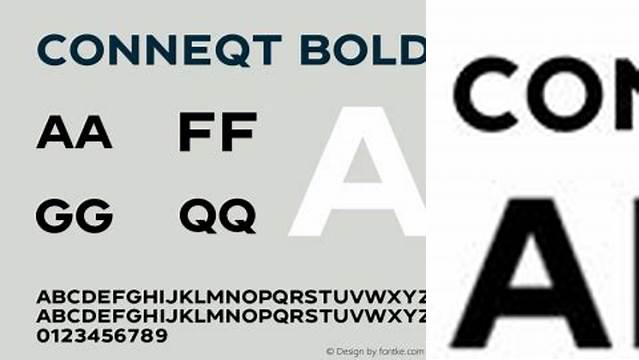
Hey guys, ever found yourself scrolling through countless fonts, desperately searching for that perfect typeface that just screams confidence and style? Well, today, we're diving deep into the world of Conneqt Bold Font, and more importantly, how you can get your hands on a free TTF download. This isn't just any font; Conneqt Bold Font is a powerhouse, a visual statement that can instantly elevate your design projects, whether you're working on a slick new logo, an eye-catching website, or even just some awesome social media graphics. We're talking about a font that commands attention without being overbearing, a beautiful balance of strength and sophistication. The journey to secure your Conneqt Bold Font free download TTF file might seem a bit daunting at first, with so many sites out there claiming to offer free fonts, but don't sweat it! We're here to guide you every step of the way, ensuring you land on a legitimate, safe, and truly free version of this fantastic typeface. Think of it as your secret weapon in your design arsenal, ready to deploy and make a massive impact on your creative endeavors. It's truly amazing what a well-chosen font can do to transform a design from ordinary to extraordinary, and Conneqt Bold Font absolutely has that magic touch. Its clean lines and robust weight make it versatile for a wide array of applications, from impactful headlines that grab attention, to elegant branding elements that leave a lasting impression. Many designers often grapple with finding high-quality resources that don't break the bank, and that's precisely where a Conneqt Bold Font free download TTF comes into play as an invaluable asset. It democratizes access to professional-grade typography, allowing everyone, from students to seasoned freelancers, to produce top-tier work. We'll explore various sources where you can initiate your Conneqt Bold Font free download TTF process, discuss the importance of checking licensing agreements (even for 'free' fonts!), and walk you through the simple steps to install it on your system. So, buckle up, design enthusiasts, because your quest for the ultimate bold font is about to get a whole lot easier and more exciting with Conneqt Bold Font as your new best friend. Let’s get started on bringing this incredible typeface into your creative toolkit, absolutely free! Finding a truly Conneqt Bold Font free download TTF source can make all the difference for your budget-conscious projects, allowing you to achieve a high-end look without any cost. This guide is dedicated to helping you achieve just that, ensuring you can confidently use Conneqt Bold Font in your next big thing without any worries, propelling your designs forward with style and impact.
Why Conneqt Bold Font is a Must-Have for Designers
Alright, guys, let's talk about why Conneqt Bold Font isn't just another typeface you'll download and forget. This font is a game-changer, a real asset for anyone serious about design, and getting a free TTF download is like striking gold. The power of Conneqt Bold Font lies in its sheer presence. It commands attention without being aggressive, offering a perfect blend of strength and sophisticated elegance that can instantly elevate any visual project. Imagine trying to create a headline that really pops, or a brand name that sticks in people's minds – Conneqt Bold Font does precisely that. Its robust weight makes it incredibly effective for titles, logos, and any area where you need text to stand out prominently and make a lasting impression. It's the kind of font that instantly adds a layer of professionalism and modernity to any project, which is why so many designers are actively seeking a Conneqt Bold Font free download TTF. This font doesn't just fill space; it defines it, giving your words the weight and gravitas they deserve, ensuring your message is not just seen but felt. The intentional design behind each character speaks volumes, making it a powerful choice for communicating confidence and clarity in any medium. Many fonts can be bold, but few achieve the same level of refined assertiveness that Conneqt Bold Font masterfully delivers. It truly sets a new standard for impact without sacrificing aesthetic appeal.
One of the biggest reasons Conneqt Bold Font is a must-have is its exceptional versatility. While it shines in bold applications, its clean lines and well-proportioned characters ensure excellent readability across various sizes. This means you’re not just getting a headline font; you’re getting a workhorse that can be adapted for subheadings, call-to-actions, and even short bursts of copy where emphasis is required. Think about the consistency this brings to your designs! Instead of juggling multiple bold fonts, Conneqt Bold Font can often serve several purposes, streamlining your workflow and maintaining a cohesive visual identity across all your creative output. For students or freelance designers operating on a tight budget, securing a Conneqt Bold Font free download TTF is an absolute blessing, providing access to a high-quality design element without incurring costs. This accessibility allows for greater creative freedom and experimentation, which is vital for developing unique and impactful designs that genuinely stand out. Don't underestimate the power of a well-chosen font to convey emotion and message; Conneqt Bold Font nails it every time, projecting confidence and clarity with every stroke. So, if you're looking to elevate your design game, add a touch of modern sophistication, and make your message truly resonate, then getting your hands on a Conneqt Bold Font free download TTF should be high on your priority list. It's an investment in your design future, an essential tool that will pay dividends in the quality and impact of your work. Seriously, guys, once you start using this font, you'll wonder how you ever managed without its undeniable charm and undeniable strength. It's a key component to a polished, professional aesthetic, easily accessible through a Conneqt Bold Font free download TTF link that this guide will help you find.